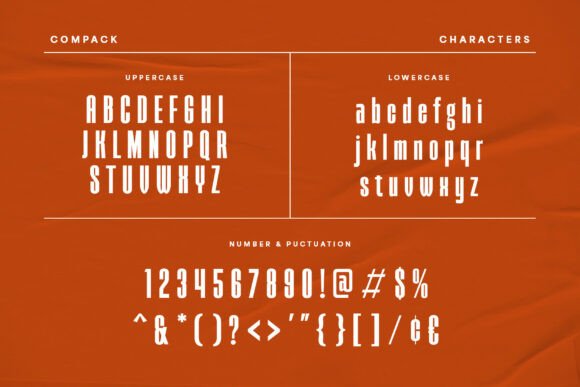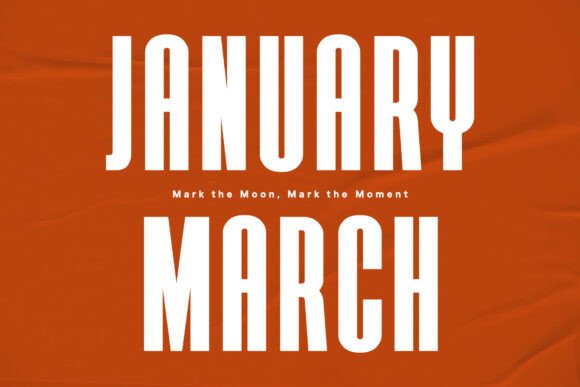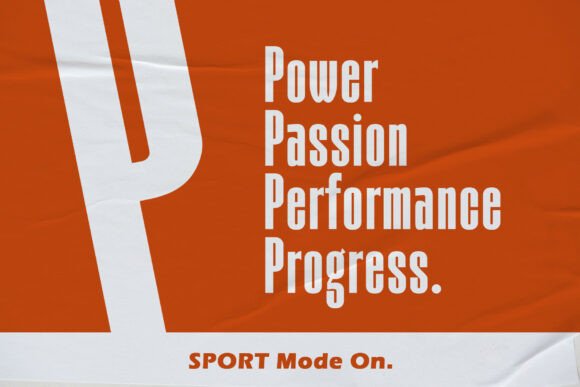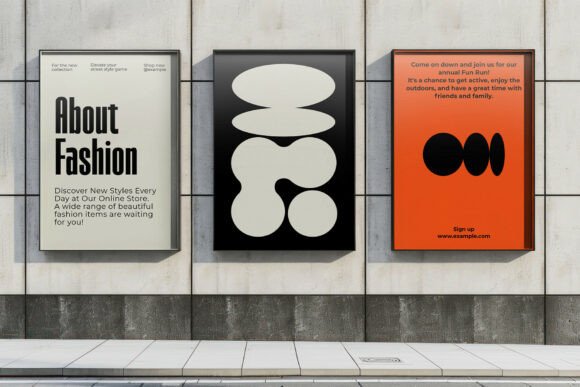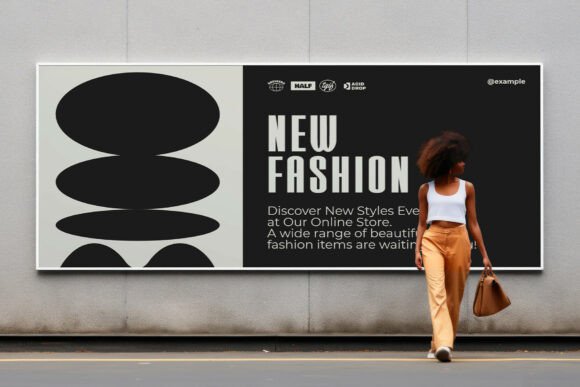
Introducing Compack: The Ultimate Modern Sans Serif Typeface for Bold Designs
In the world of typography, a font can make or break a design. It’s the foundation upon which the entire visual identity is built. For designers and crafters seeking a bold, unadorned aesthetic with a sophisticated, contemporary gloss, look no further than Compack. This modern, sans serif typeface is engineered to command attention, making it the perfect choice for assertive headlines, potent branding schemes, athletic graphics, and cutting-edge advertising.
The Power of Compack
Compack exudes a potent, self-assured aura that’s impossible to ignore. Its condensed nature allows it to make a significant impact without overwhelming the senses. The sturdy letterforms ensure visual impact without compromising legibility, making it remarkably versatile across a multitude of uses. Whether you’re crafting a bold logo, an irresistible poster, or an innovative digital initiative, Compack infuses your work with a fresh, polished, and vivacious vibe.
Unleash Your Creativity with Compack
Compack is more than just a font – it’s a design statement. Its bold, sans serif aesthetic is perfect for designers who want to push the boundaries of creativity. With Compack, you can:
- Create stunning headlines that grab attention
- Develop potent branding schemes that leave a lasting impression
- Design athletic graphics that exude energy and dynamism
- Craft innovative digital initiatives that demand attention
The Benefits of Using Compack
So, what sets Compack apart from other fonts? Here are just a few benefits of using Compack in your designs:
- Legibility: Despite its condensed nature, Compack remains highly legible, even at smaller font sizes.
- Versatility: Compack is remarkably versatile, making it suitable for a wide range of design applications.
- Visual Impact: The sturdy letterforms ensure a strong visual impact, making Compack perfect for bold designs.
- Contemporary Aesthetic: Compack’s modern, sans serif aesthetic ensures your designs look fresh and contemporary.
Real-World Applications of Compack
Compack’s versatility makes it suitable for a wide range of design applications. Here are a few real-world examples of how Compack can be used:
- Logo Design: Compack’s bold, sans serif aesthetic makes it perfect for creating striking logos that demand attention.
- Poster Design: Compack’s sturdy letterforms ensure your posters make a strong visual impact, even from a distance.
- Digital Design: Compack’s legibility and versatility make it an excellent choice for digital initiatives, such as website headers, social media graphics, and more.
Compack is a game-changing font that’s poised to elevate your typographic game. Its bold, modern aesthetic, combined with its remarkable versatility and legibility, make it the definitive choice for designers seeking a bold, unadorned aesthetic coated in a sophisticated, contemporary gloss. Whether you’re a designer, crafter, or simply someone who appreciates great typography, Compack is an excellent addition to your font library.